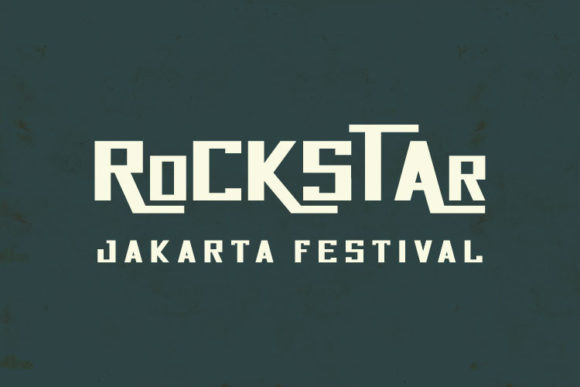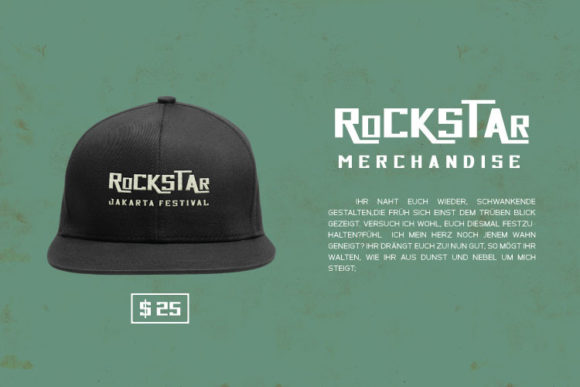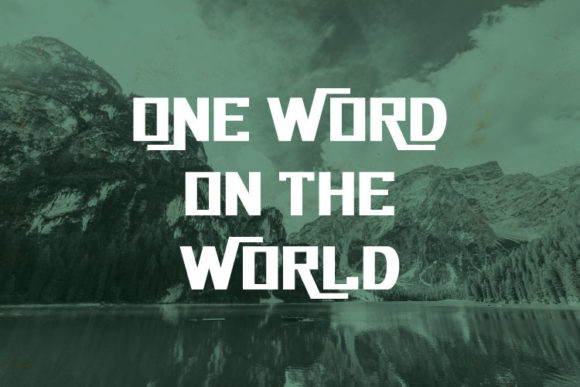
Introduction to Craftypan Font
Craftypan is an organic, vintage styled display font.
No matter the topic, this font will be an incredibly asset to your fonts’ library, as it has the potential to elevate any creation Craftypan is PUA encoded which means you can access all of the glyphs and swashes with ease.